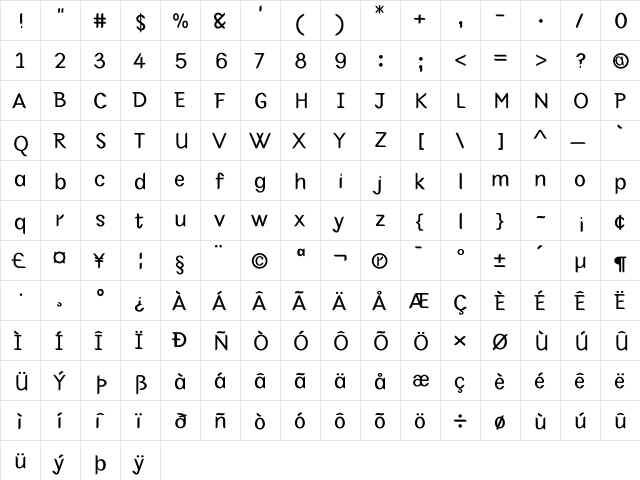
GreenTerrorRegular Regular
Design Context for GreenTerrorRegular Typeface
GreenTerrorRegular offers clean, dependable letterforms without strong stylistic allegiance, making it a practical choice for designers who need flexibility.
Pro Tip: Use GreenTerrorRegular in both headline and body roles to test its range before committing to a single application.